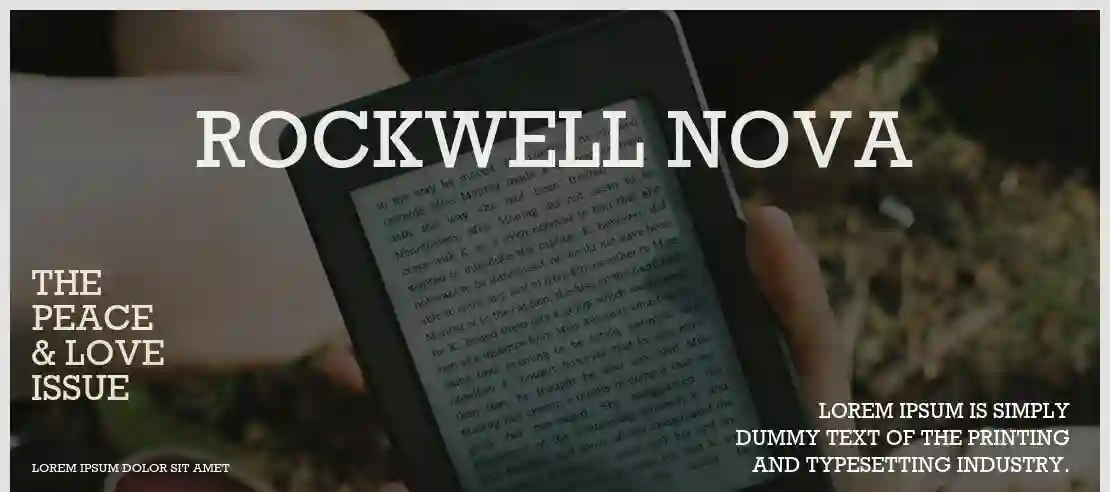
The Rockwell Nova Font is exceptionally versatile for numerous professional applications including corporate branding, business presentations, annual reports, magazine layouts, newspaper headlines, architectural signage, construction company materials, engineering documentation, industrial design projects, and professional service communications. Its robust character makes it particularly effective for corporate enterprises, professional services, publishing houses, and established businesses seeking to convey reliability, authority, and timeless professionalism in their visual communications and brand presentations.
What makes the Rockwell Nova Font incredibly exciting is its masterful evolution of classic slab serif typography enhanced with contemporary design refinements. This distinguished typeface combines the authoritative presence of traditional geometric slab serifs with modern optimization that ensures exceptional performance across today's digital and print media landscape. The font's commanding character emerges from its strong, geometric construction, confident proportions, and carefully engineered details that create a sense of institutional authority and unwavering reliability, making it perfect for brands seeking to establish credibility and professional excellence.
The Rockwell Nova Font family offers a comprehensive collection of weights and styles designed to meet diverse professional typography requirements. The collection typically includes thin, light, regular, medium, bold, and black weights, with many versions featuring italic variants that provide additional expressive options for professional communications. Some editions may include condensed and extended versions, along with specialized character sets that enhance the font's utility for technical documentation and international business applications.
Professional designers and corporate communication teams consistently select the Rockwell Nova Font Free Download for its exceptional readability and authoritative presence. The font features meticulously engineered spacing and kerning that ensures optimal legibility across various sizes and professional applications, from detailed financial reports to large-scale corporate signage. Its robust construction maintains clarity and impact in both digital presentations and printed materials, while the comprehensive character set includes uppercase and lowercase letters, numerals, punctuation marks, and special symbols, along with extensive language support for international corporate communications.
The Rockwell Nova Font represents the evolution of institutional typography, combining proven design principles with contemporary functionality. Its authoritative aesthetic commands respect while maintaining the versatility required for diverse professional applications. The font's remarkable adaptability allows it to work effectively in both traditional corporate contexts and modern business presentations, ensuring consistent professionalism across websites, annual reports, corporate materials, and professional documentation.
Establish authority and professional excellence with the commanding presence and institutional reliability of the Rockwell Nova Font, the ultimate choice for corporate typography excellence.